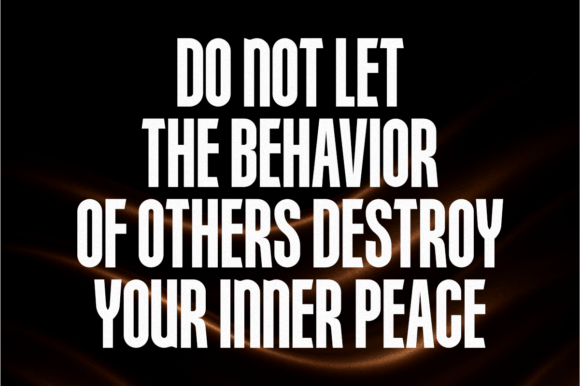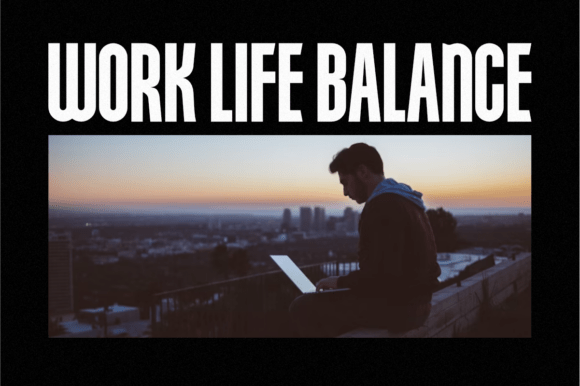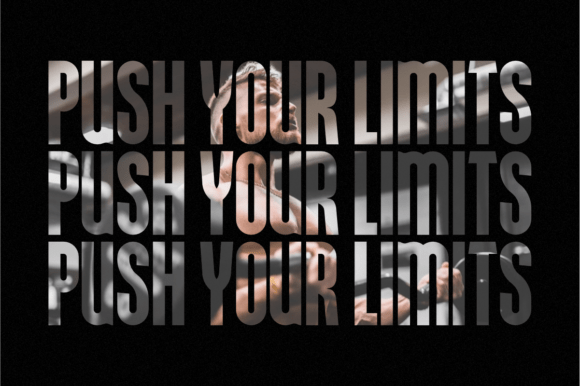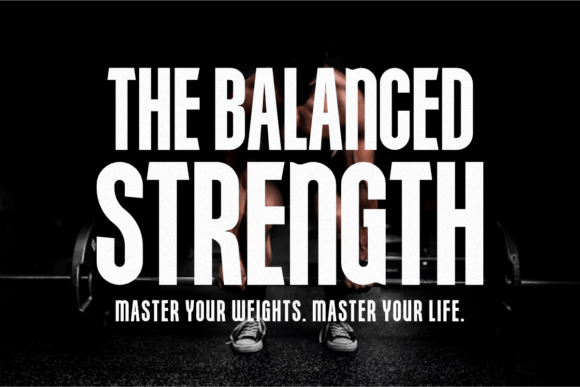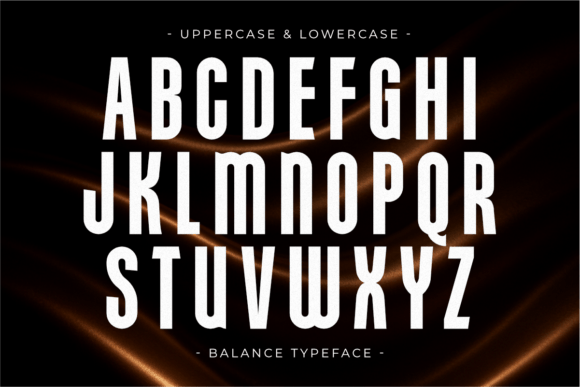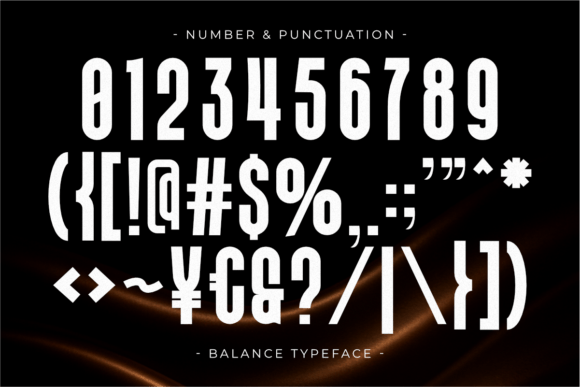
Introducing Balance Font: The Ultimate Modern Sans Serif for Bold Visual Impact
In the world of typography, a font can make or break the visual identity of a brand, product, or editorial layout. For designers and crafters seeking a powerful and minimalist modern sans serif font that commands attention, Balance Font is the perfect solution. Designed with a focus on maximum visual impact, Balance Font is an ultra-bold, condensed typeface ideal for high-fashion branding, sports logos, editorial layouts, and colossal headlines.
Key Features of Balance Font
• Ultra-Bold and Condensed Structure: Balance Font boasts an exceptionally bold and condensed structure, making it perfect for designs that require a dominant presence in a compact vertical format.
• All-Caps Typeface: This font is designed as an all-caps typeface, delivering a sophisticated and contemporary visual identity that’s instantly recognizable.
• Modern Sans Serif: Balance Font features a clean, modern sans serif design, ensuring a striking presence in any project.
Perfect for High-Impact Designs
Balance Font is specifically designed for projects that demand a bold, clean, and striking visual presence. Its ultra-bold structure makes it perfect for:
• High-Fashion Branding: Create stunning fashion logos, labels, and branding materials that exude luxury and sophistication.
• Sports Logos: Design powerful sports logos, jerseys, and promotional materials that convey energy and dynamism.
• Editorial Layouts: Use Balance Font to create eye-catching headlines, titles, and subtitles for editorial layouts, magazines, and newspapers.
• Colossal Headlines: Make a statement with massive headlines that demand attention, perfect for billboards, posters, and digital displays.
Balance Font offers numerous benefits for designers and crafters seeking a modern sans serif font with a powerful presence:
• Instant Recognition: Balance Font’s unique design ensures instant recognition, making it perfect for brands and products seeking a distinctive visual identity.
• Versatility: This font is versatile and can be used across various design projects, from fashion and sports to editorials and advertising.
• Clean and Modern: Balance Font’s clean and modern design ensures a professional and sophisticated look that’s perfect for a wide range of applications.
Why Choose Balance Font?
With Balance Font, designers and crafters can elevate their designs with a powerful, modern sans serif font that’s specifically designed for maximum visual impact. Here are just a few reasons why Balance Font stands out:
• Unique Design: Balance Font’s ultra-bold, condensed structure is unlike any other font on the market, making it a standout choice for designers seeking a distinctive look.
• High-Quality Typography: This font is designed with attention to detail, ensuring high-quality typography that’s perfect for both digital and print applications.
• Easy to Use: Balance Font is easy to use and can be integrated seamlessly into various design projects, making it a convenient choice for designers and crafters.
In conclusion, Balance Font is an exceptional modern sans serif font that’s perfect for designers and crafters seeking a powerful, minimalist, and visually striking typeface. Its ultra-bold, condensed structure, all-caps design, and clean modern look make it an essential tool for creating high-impact designs that demand attention.